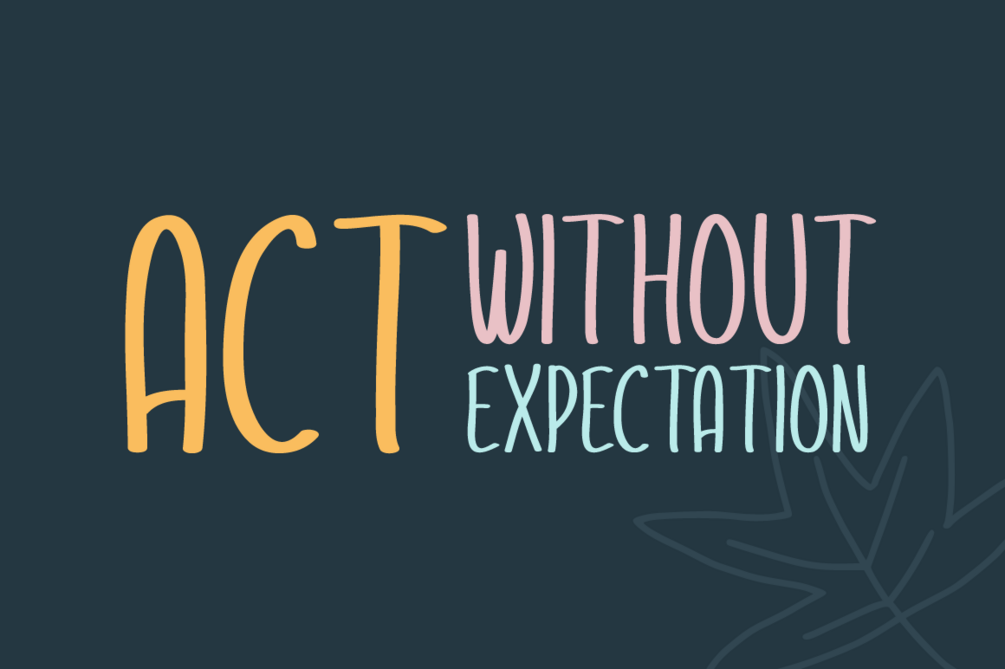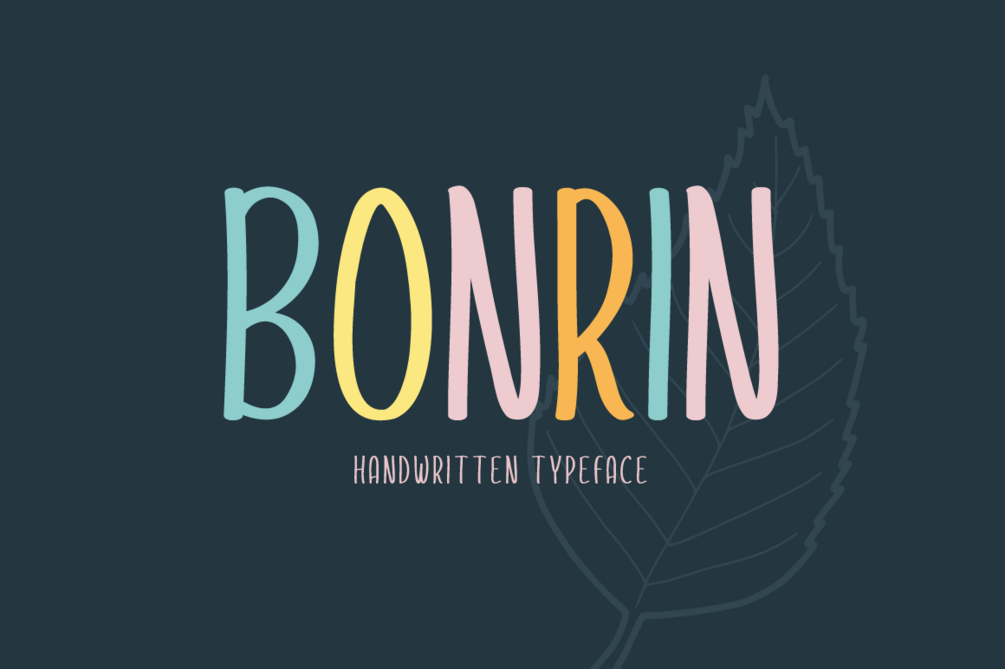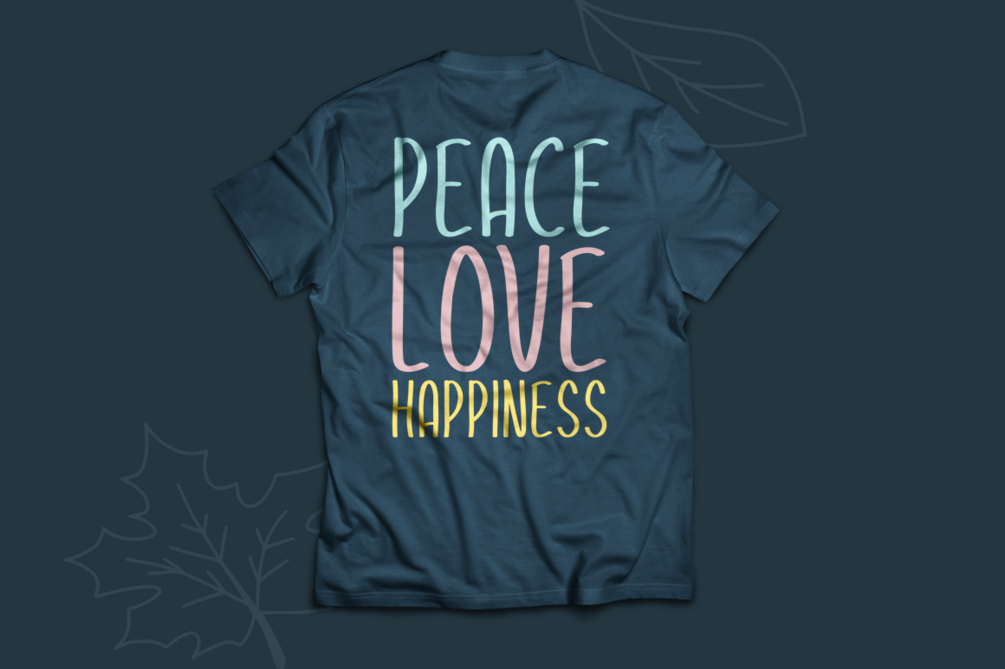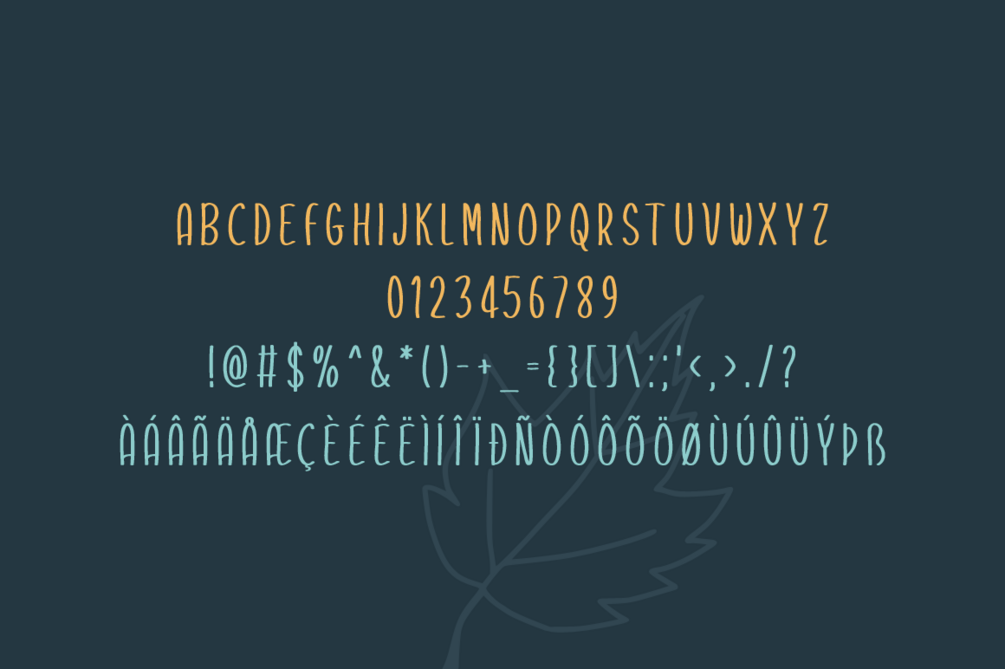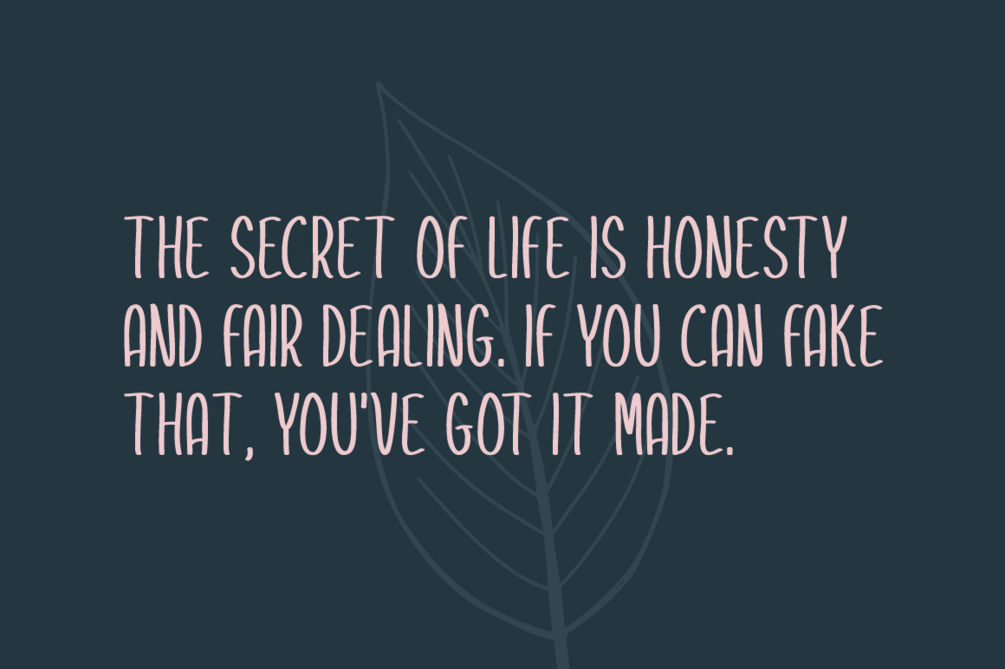
Bonrin Typeface
Bonrin is a brand new handwritten font. Bonrin is perfectly suited for stationery, logos, t-shirt, paper, print design, website header, photo frame, flyer, music cover, poster, image slider and much more.
Includes a range of multilingual support